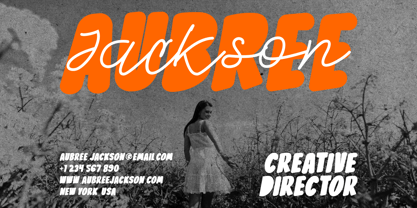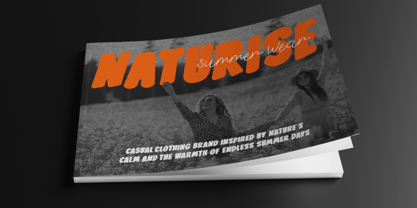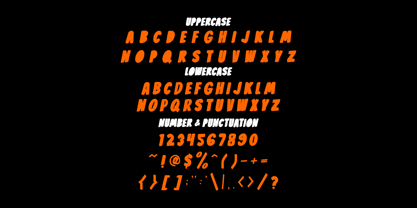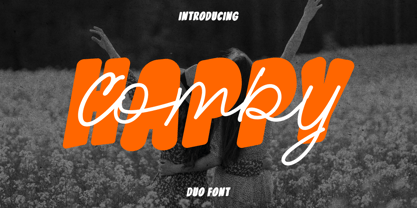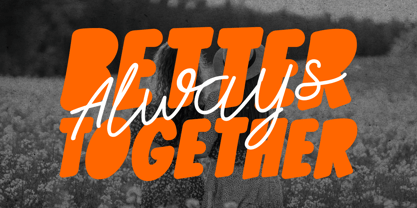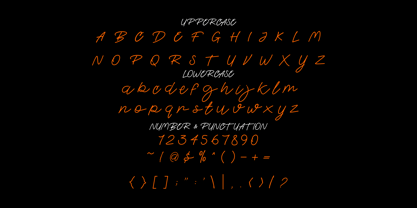
Happy Comby
by Shanaf
The Happy Comby Font Family was designed by Yesie Erma Yunita and published by Shanaf. Happy Comby contains 2 styles and family package options. More about this family
Happy Comby Duo Font combines a heavy display sans with a flowing script companion. The bold style features thick strokes, rounded corners, and compact proportions. Letters appear wide with short ascenders and descenders. This creates a solid and grounded silhouette. Stroke weight stays consistent, giving headlines strong visual presence. The texture feels smooth and slightly soft rather than sharp or rigid. In contrast, the script style shows thin to medium strokes with fluid connections. It introduces movement through sweeping curves and natural rhythm. The pairing creates contrast between strong structure and expressive flow. The overall style feels modern, playful, and confident. It leans toward contemporary branding rather than vintage themes. Happy Comby Duo Font works well for designers who need instant hierarchy and dynamic composition. This duo font suits logo systems that require bold titles with elegant accents. It performs strongly in branding projects for creative studios, lifestyle brands, and seasonal campaigns. The bold type handles headlines, posters, and advertising with clarity. The script layer adds personality to taglines, quotes, and highlights. Together they create balanced compositions for packaging, invitations, greeting cards, and book covers. The pairing also fits magazine titles, movie titles, and promotional materials. Designers can use the bold style alone for impactful statements. The script works independently for signature elements. This flexibility supports consistent branding across digital and print media. Happy Comby Duo Font helps businesses build expressive identities with strong contrast and clear visual structure.
Designers: Yesie Erma Yunita
Foundry: Shanaf